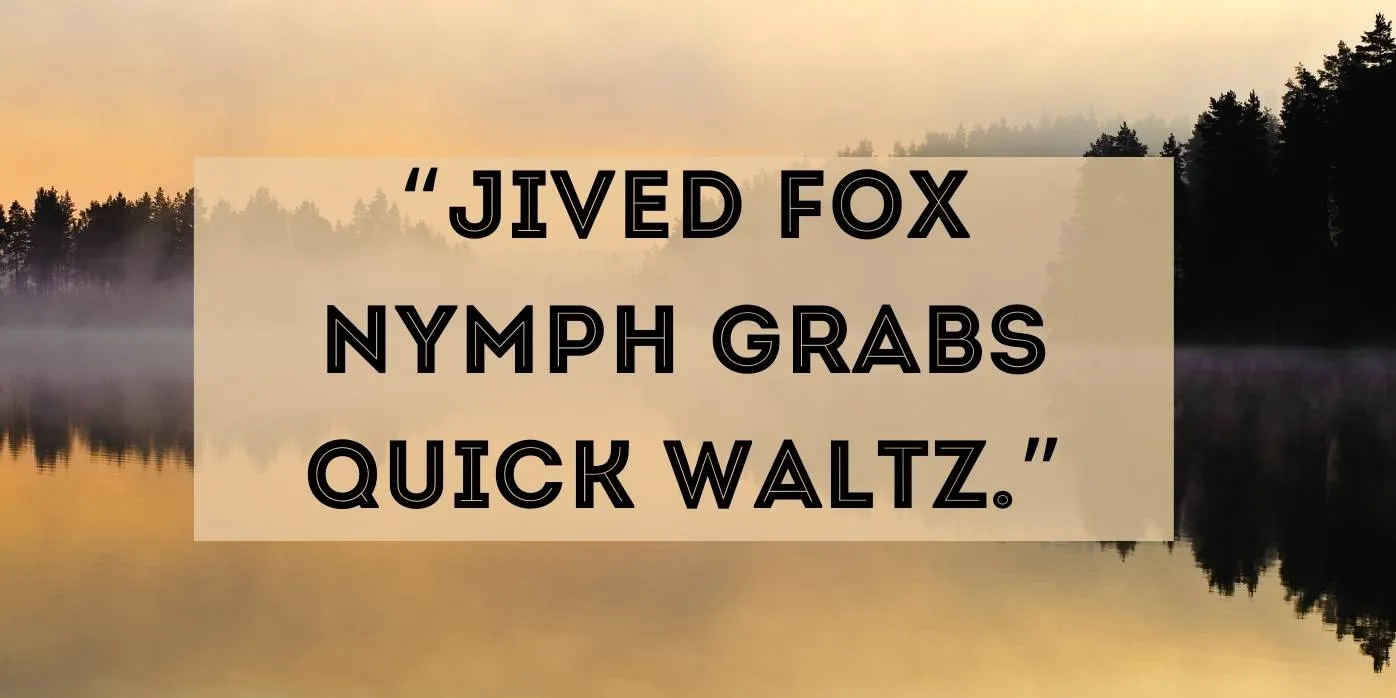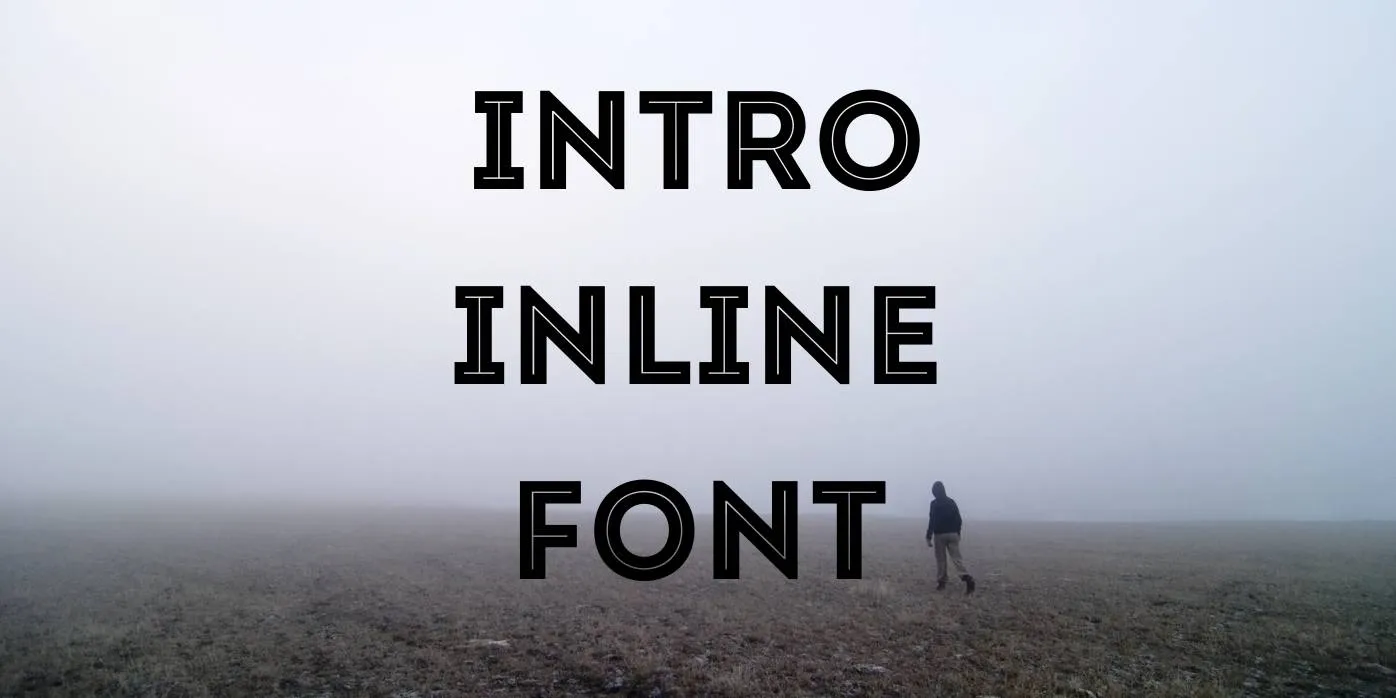
Intro Inline Font
Intro Inline Font was developed and designed by Miroslav Bekyarov in the year 2012. This typeface belongs to the Display typeface.  This typeface has medium contrast and has an uppercase character set. It supports Latin, Cyrillic, and Greek scripts languages. The glyphs are well spaced and have a uniform stroke width.
These Glyphs also have a well-defined weight contrast. This stunning Font is available in six weights- Thin, Light, Regular, Medium, Demi Bold, and Bold. These weights make it more powerful and strong. This typeface has keen and clean features.
This typeface is best for CSS Family. Stingo Digital Font is most similar to this classy font family. This typeface is best for printing projects. It has very legible letterforms and is perfect for big titles.